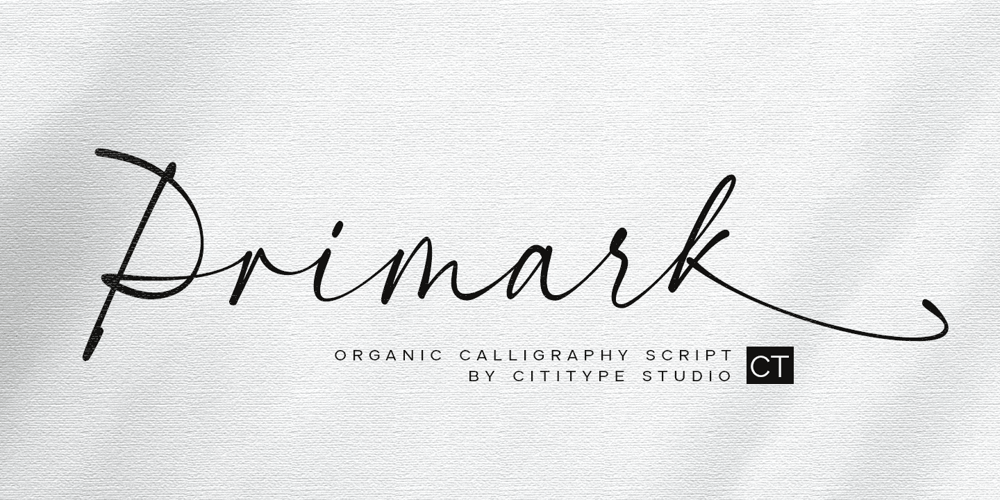
Primark
Primark font
Primark Font Family was designed by Muhammad Ridha Agusni, Siti Saribanon Nurjannah and published by Cititype. Primark contains 3 styles and family package options. Primark is a chic, modern and elegant script font with a prominent appearance, it’s a great choice for logotypes, brand names, digital signatures, online portfolios, website banners, posters, wedding invitations, book titles, and headlines.The Primark font consists of 3 fonts, the primamark regular, alternate and swash. they are designed in the same metric so that the two fonts can be combined with each other.Come with ligatures to make it more natural impression and supported by diacritic that supports various language.Chic, Modern, elegant and stand out are words that can describe the definition of this font.